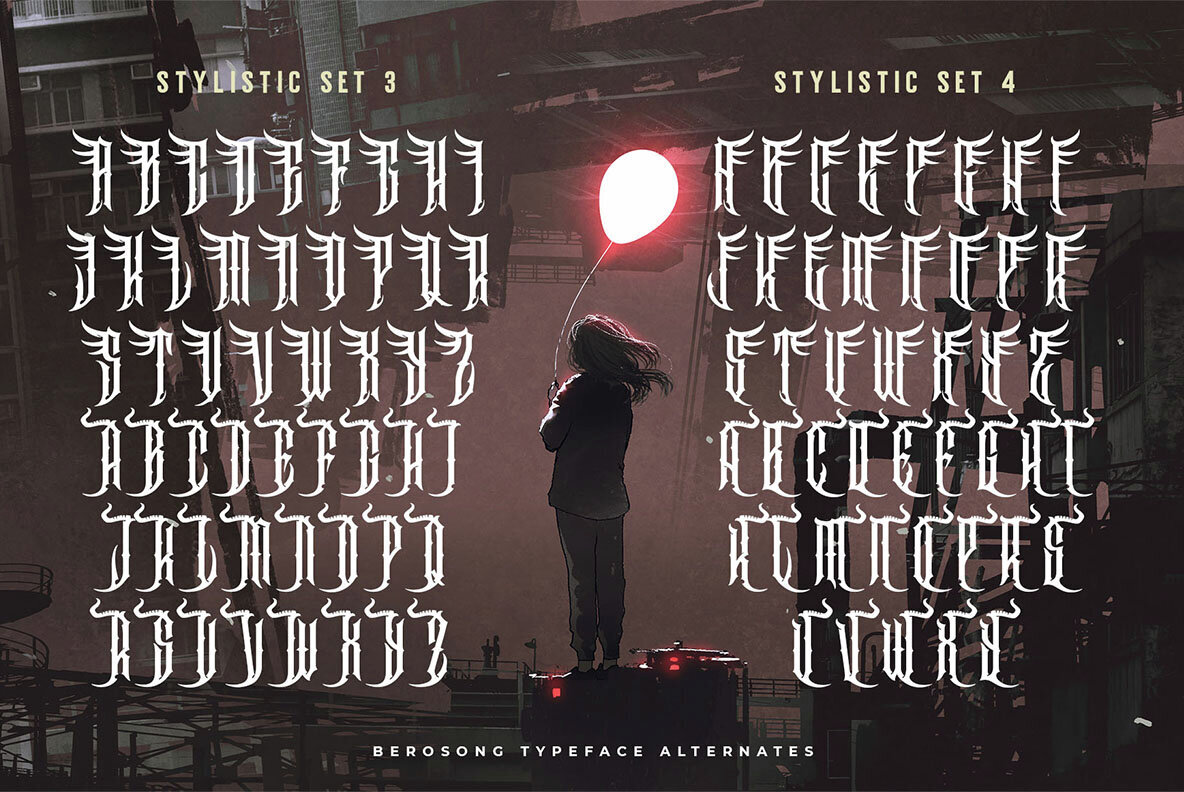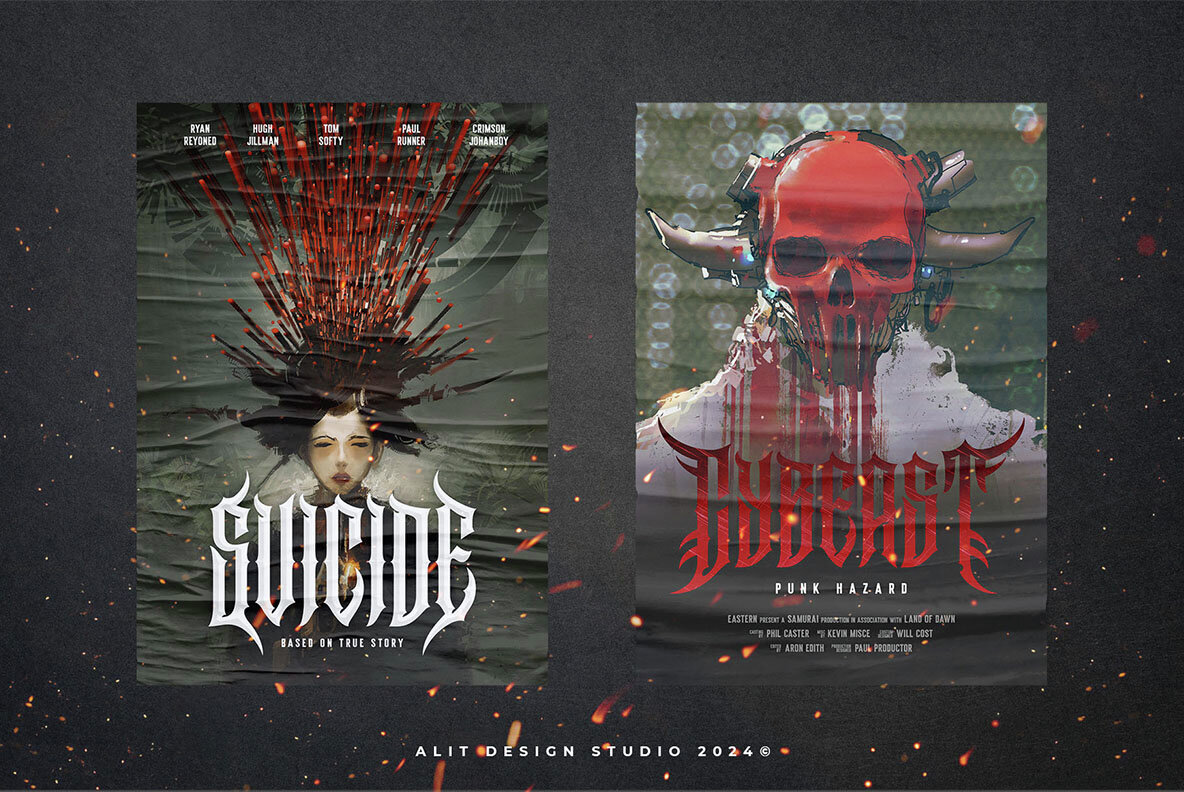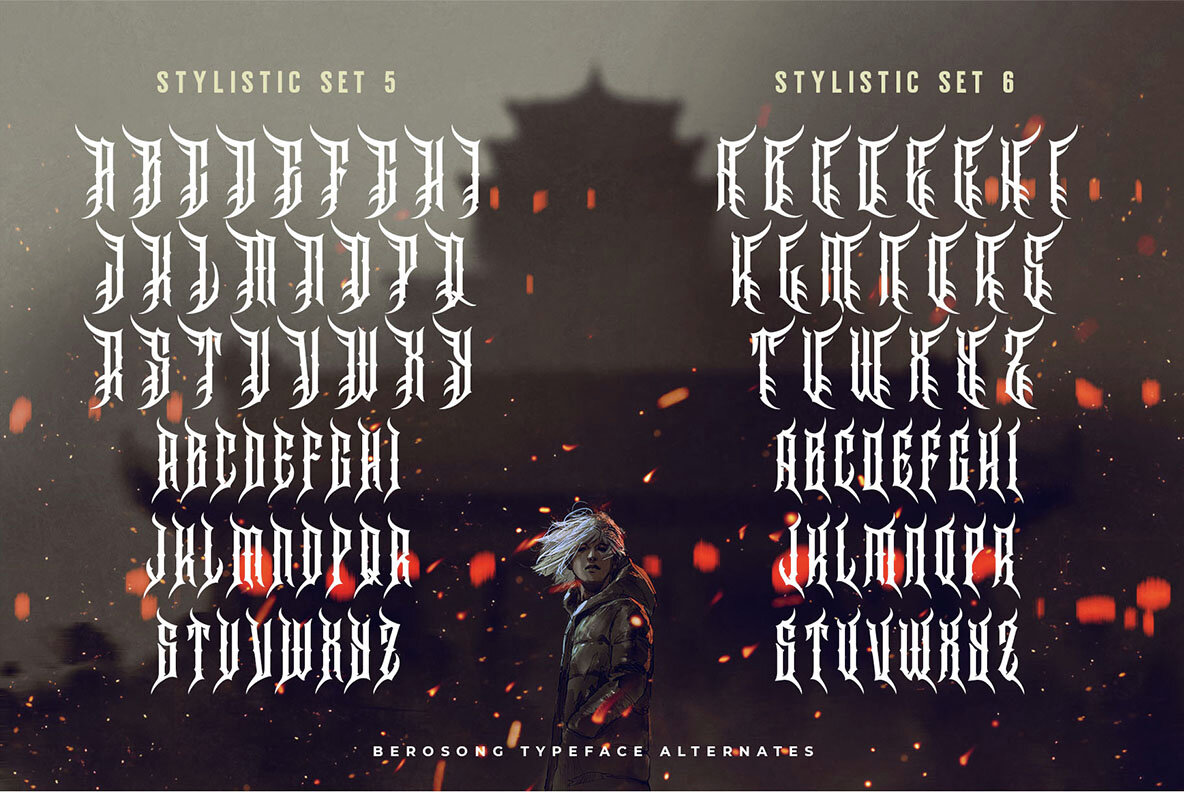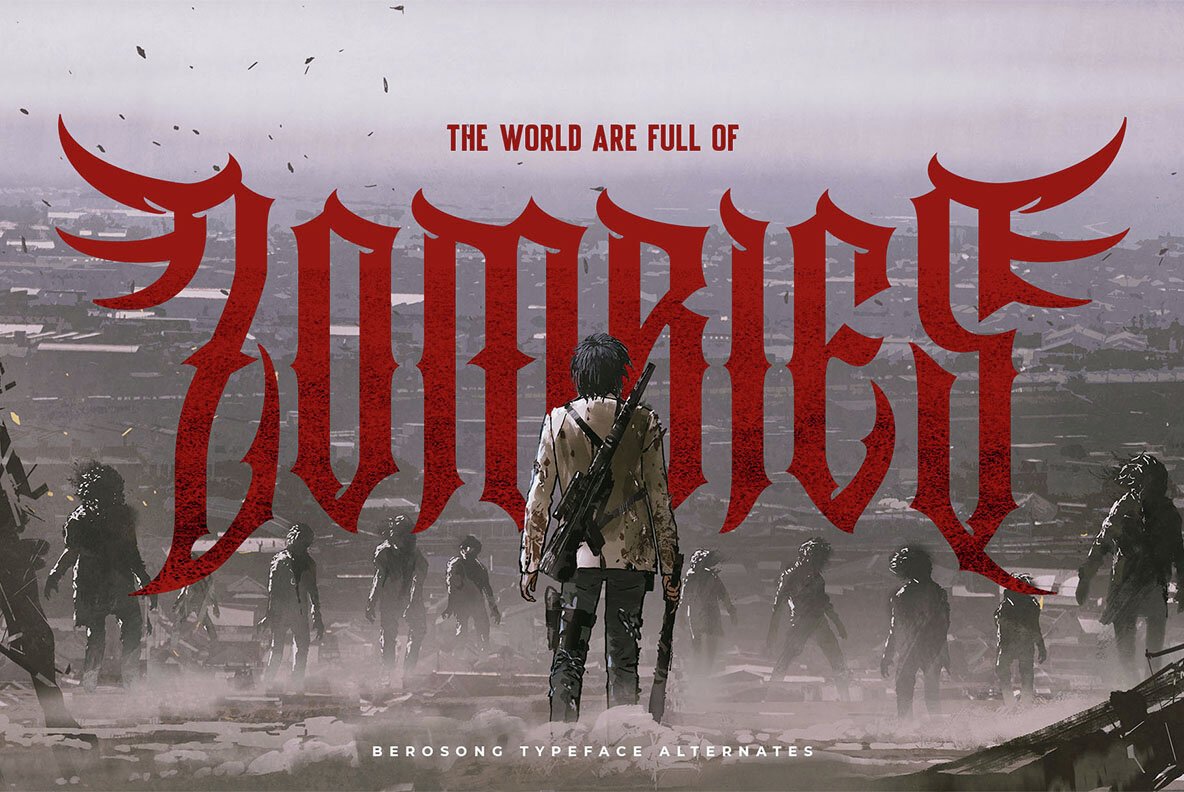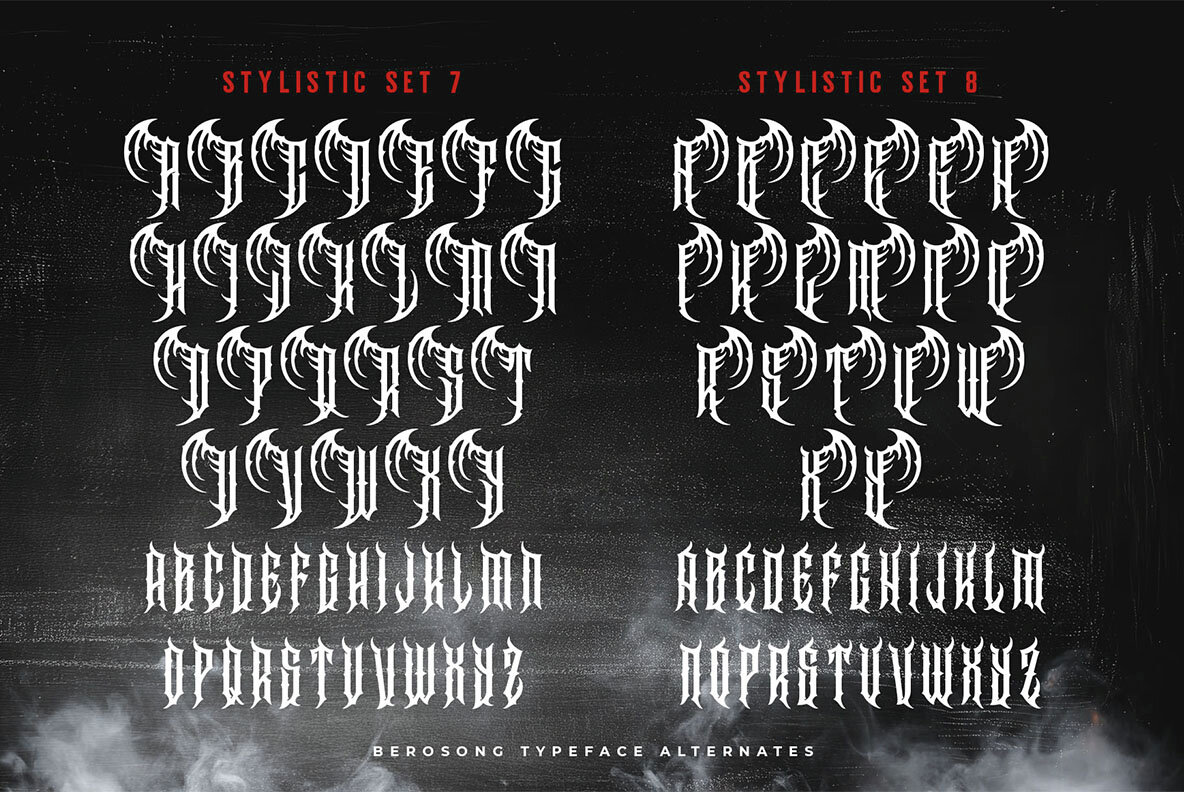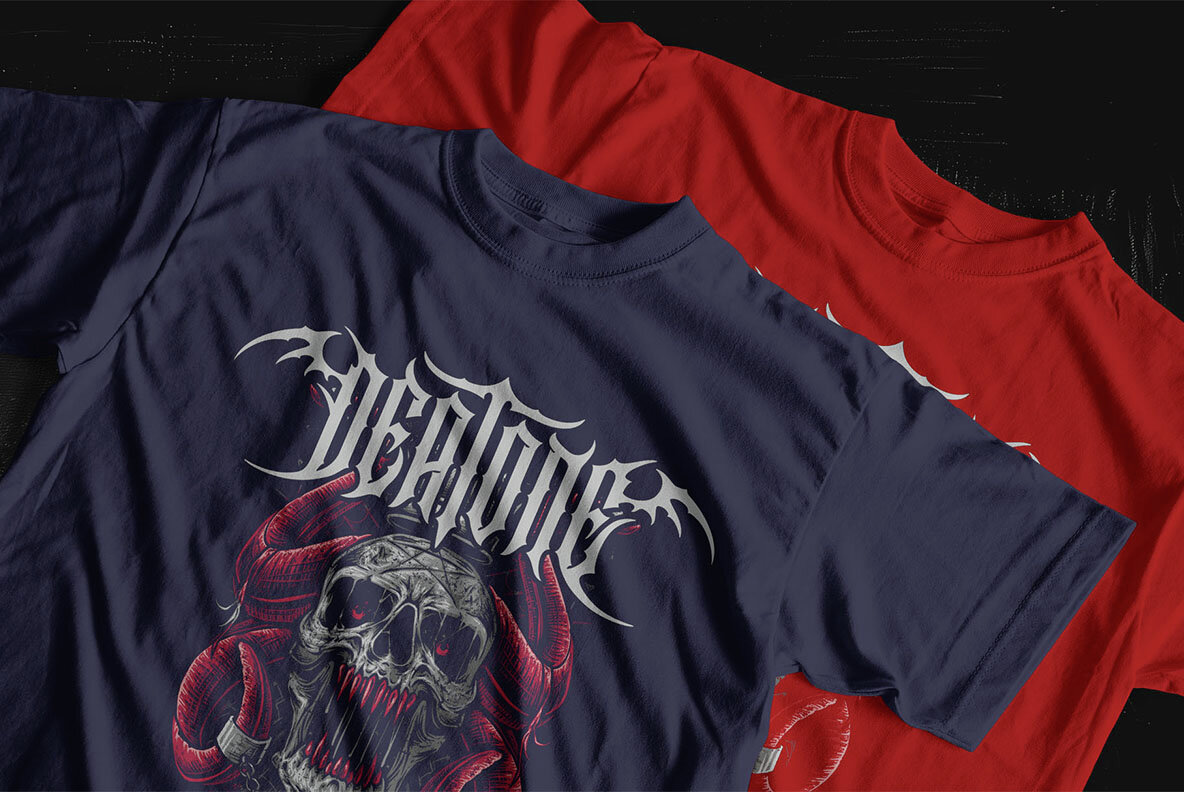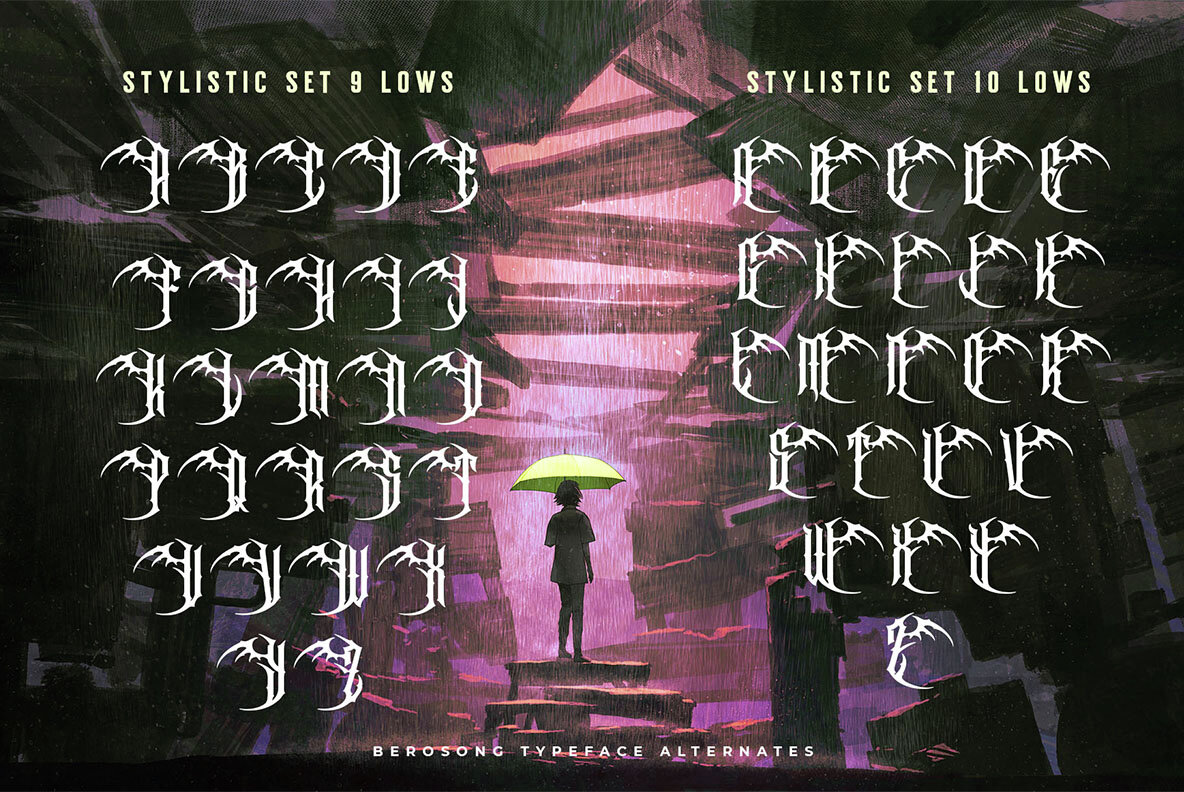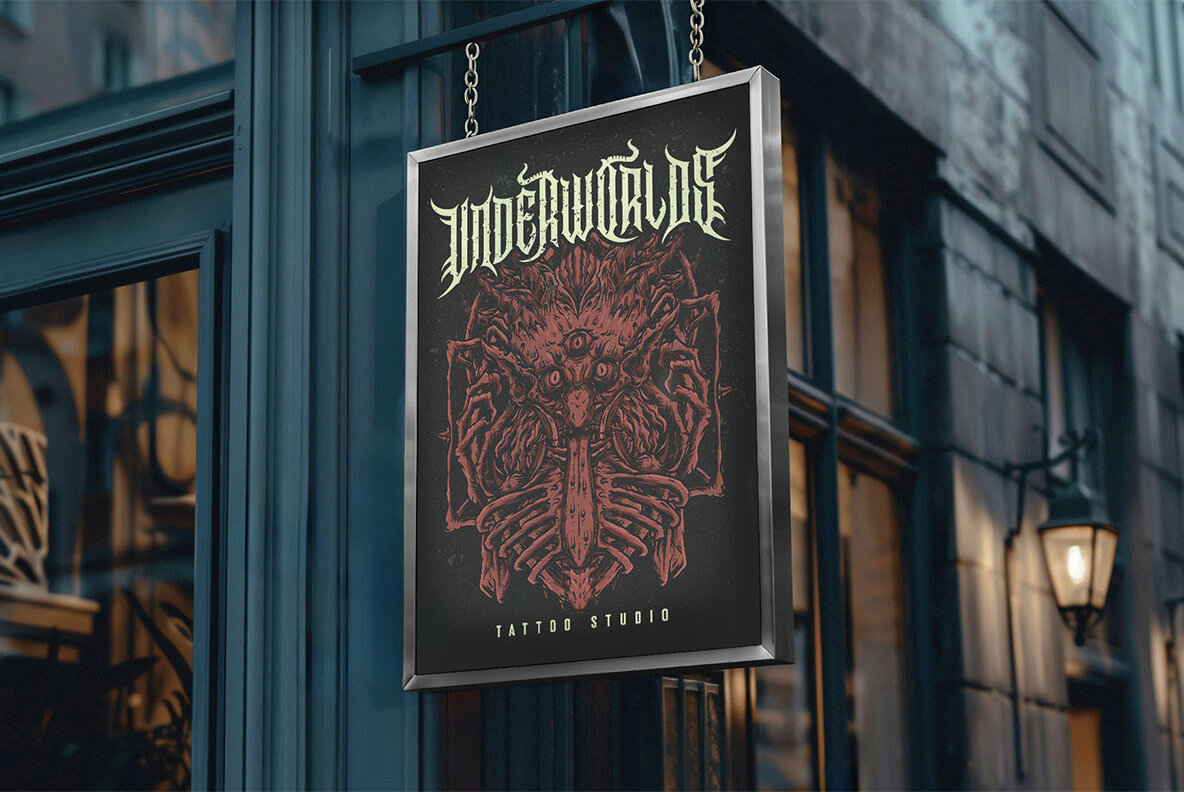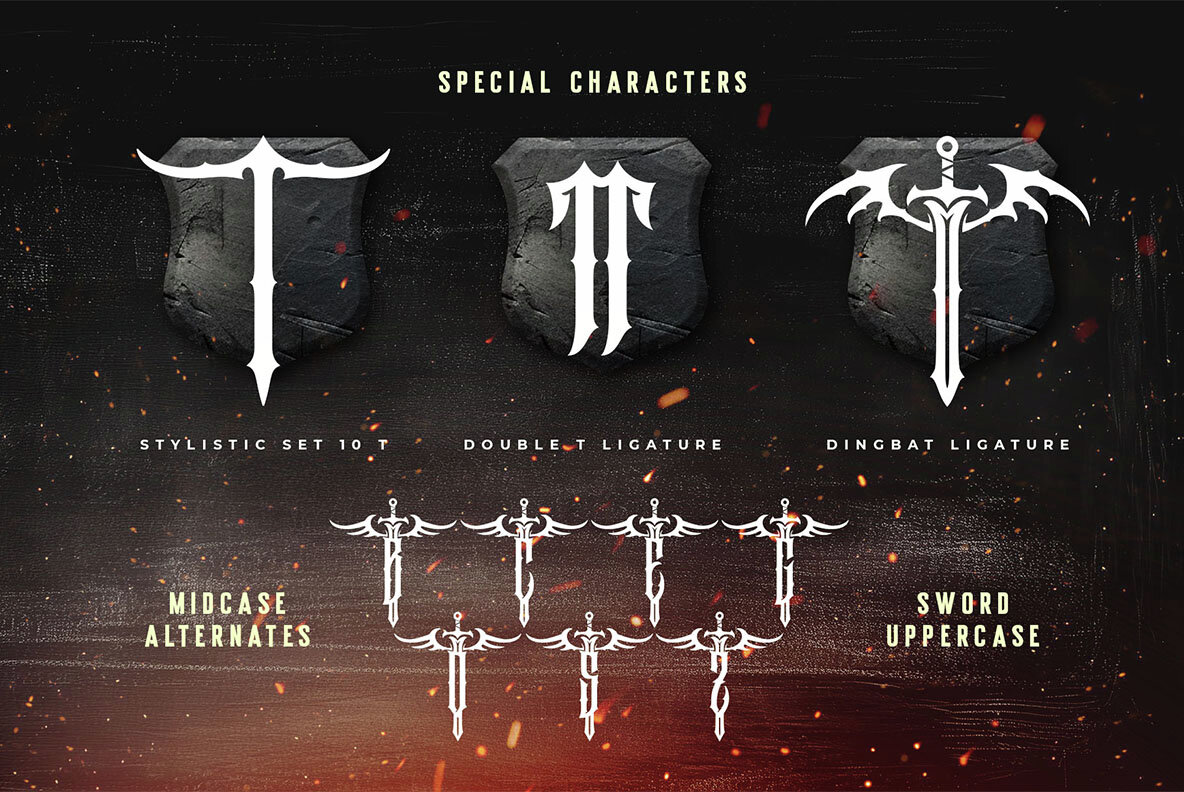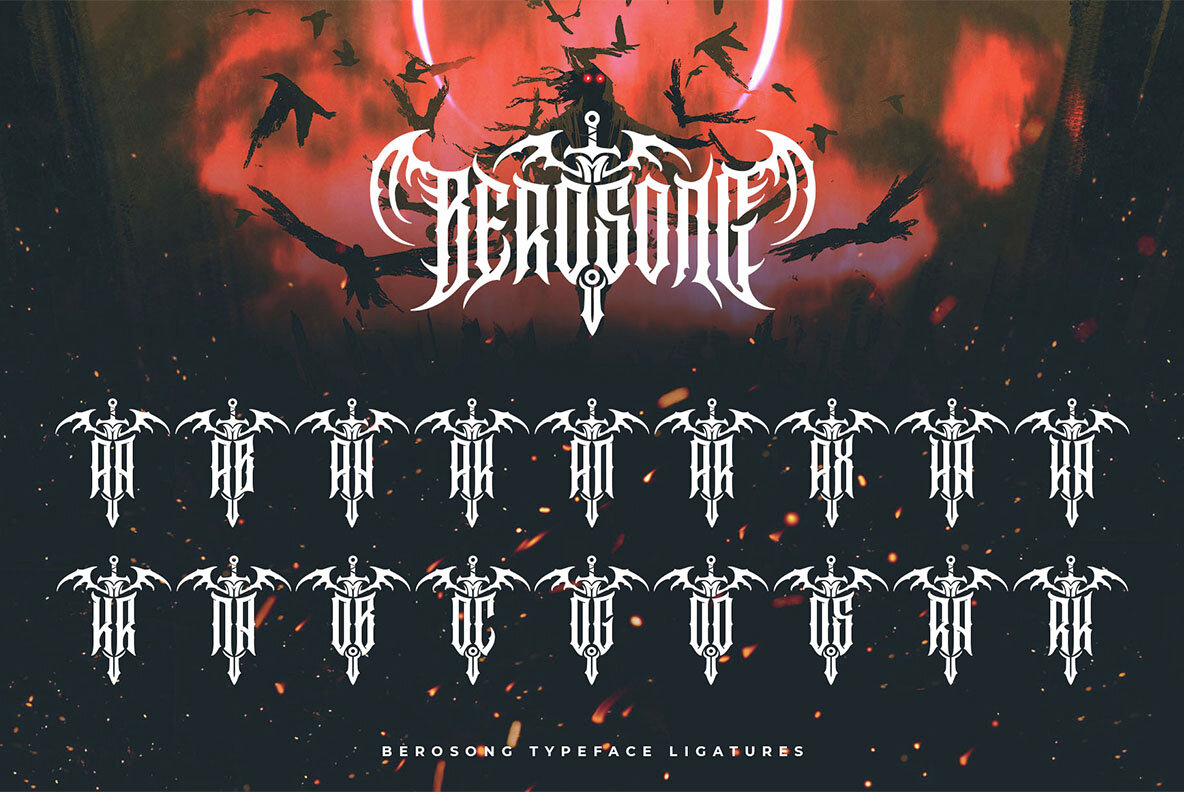
Berosong Font
Berosong Regular
Berosong is a bold, dynamic typeface designed with a modern metal aesthetic, ideal for creating designs with a sense of intensity and power. It's perfect for projects requiring a striking, edgy appearance such as game titles, music album covers, movie posters, and other creative endeavors with dark or contemporary themes.
Key Features:
- Extensive Glyph Set: Featuring 930 glyphs, this typeface delivers a comprehensive range of characters for intricate and varied designs.
- Design Versatility: Includes alternate character versions to enhance creative flexibility and special alternate letter pairs for seamless word beginnings and endings.
- Ligatures with Dingbats: Offers unique ligatures incorporating dingbats for decorative and thematic enhancements.
- Multilingual Support: Capable of supporting several languages, ensuring usability for global audiences.
Applications:
- Game Titles: Intensify the immersive vibe of video games with its bold, thematic style.
- Music Album Covers: Ideal for metal, rock, or alternative albums, adding a visually striking element.
- Movie Posters: Perfect for action, thriller, or sci-fi films, conveying intensity and modernism.
Berosong delivers an expressive blend of style and versatility that complements any modern, metal-inspired project, whether in the digital realm or print media.